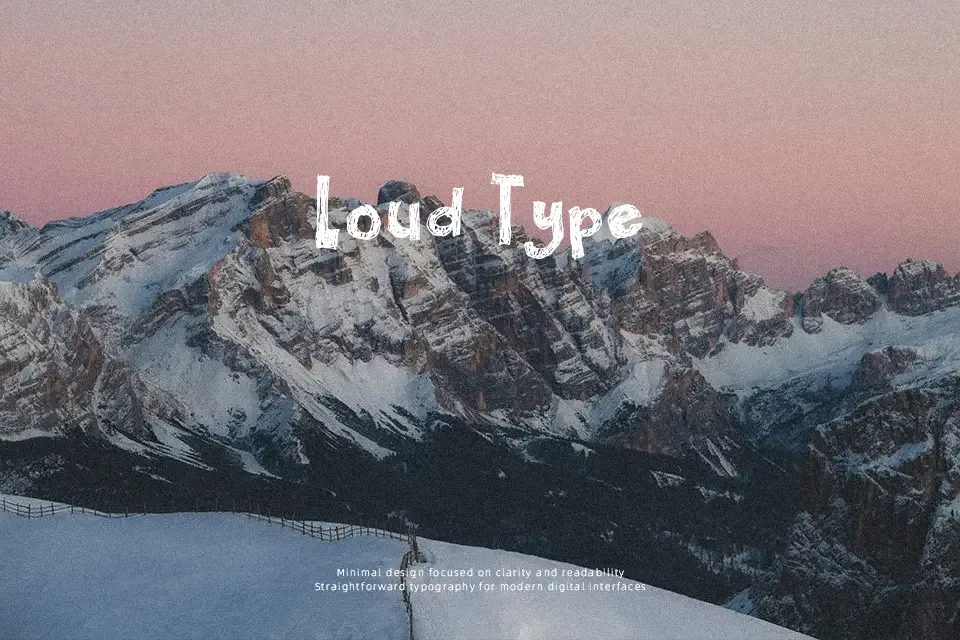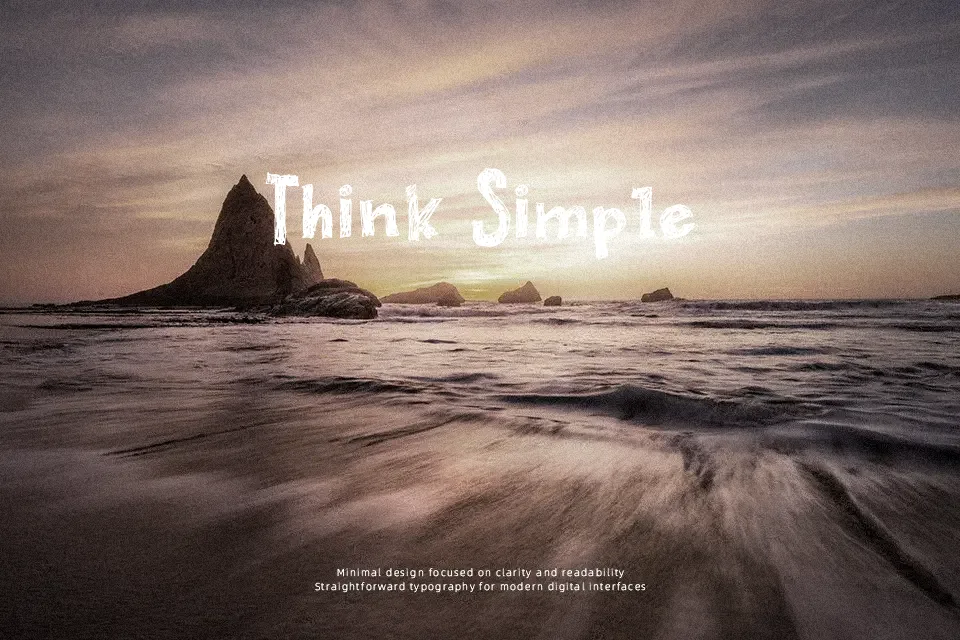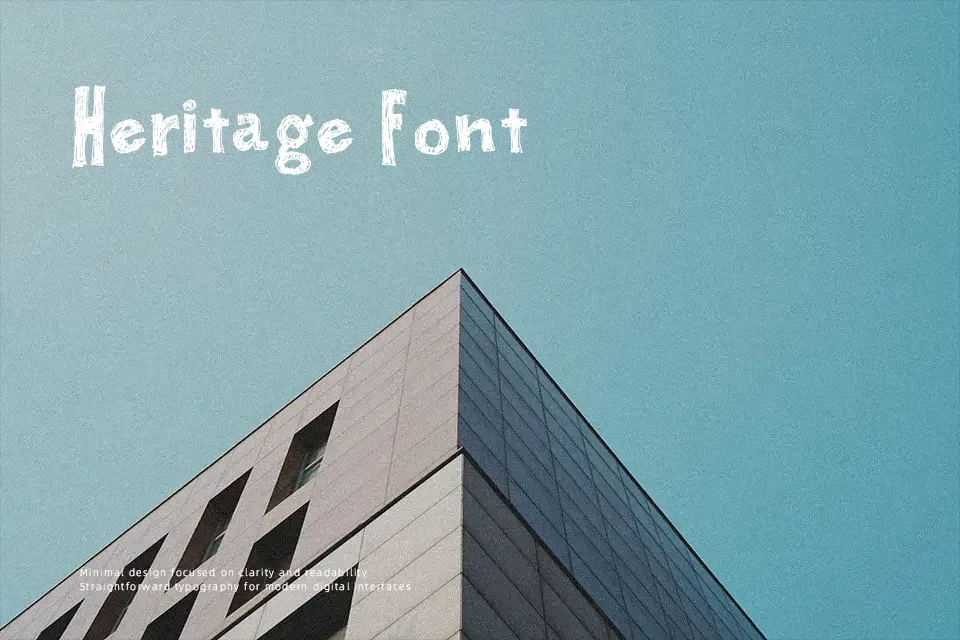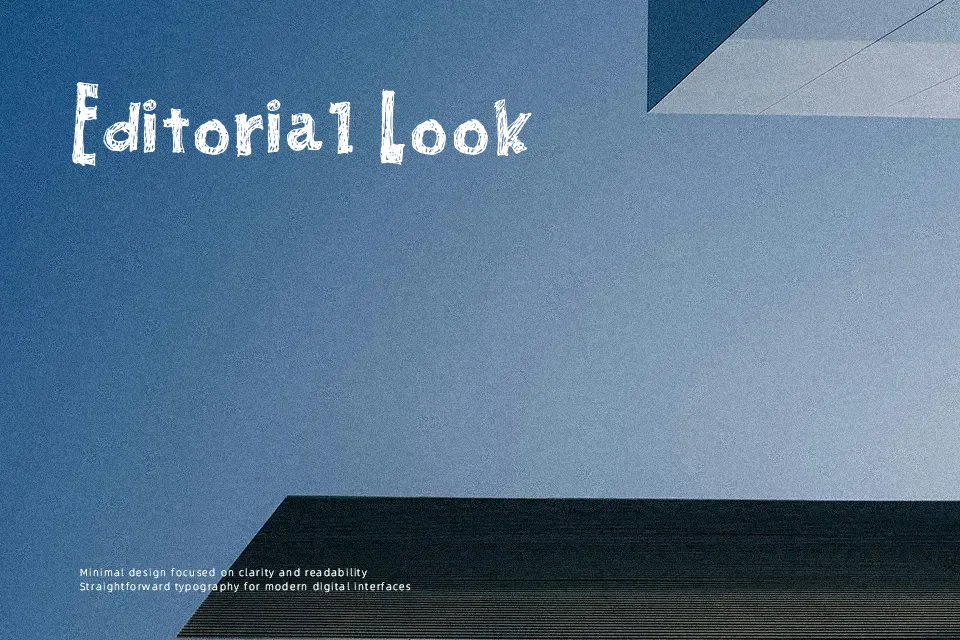
Buteco Font
Buteco comes in a chunky, condensed shape with uneven strokes, rough edges, and a hand-drawn texture that feels like marker on cardboard. Letters lean slightly and vary in width, which adds movement but also makes text blocks visually dense. It gives off a casual, urban and a bit gritty mood, sitting somewhere between cartoon and grunge display styles. I would reach for it on posters, bar or food-truck signage, bold social media graphics, and music or event artwork where personality matters more than polish. For longer copy, small interfaces, or anything that must remain strictly professional, the texture and compression become tiring and reduce legibility. Think of it as an edgier alternative to clean sans display fonts when you want something looser and more handmade.
noisy event posters and flyers
bar, pub or food-truck branding
bold music or streetwear artwork
informal social media graphics
body text or long paragraphs
formal corporate or editorial layouts
small-size UI text or captions
minimal, ultra-clean branding systems
Perfect for branding, logo, and music, with a creative and cartoon style.